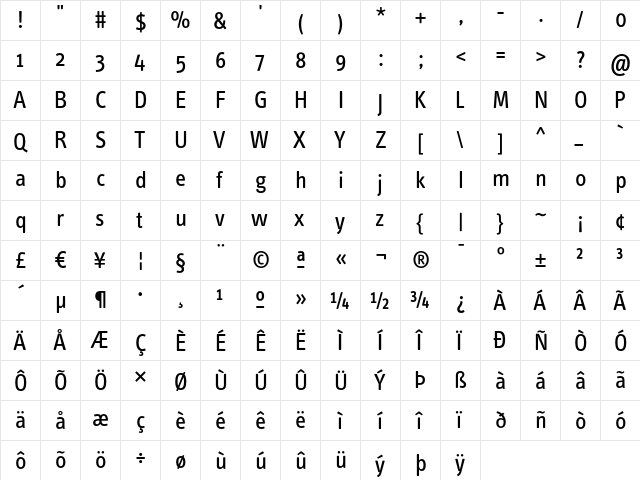
InfoTextBook Roman
Design Context for InfoTextBook Typeface
InfoTextBook is a composed and adaptable typeface that performs quietly and consistently across a wide range of design contexts.